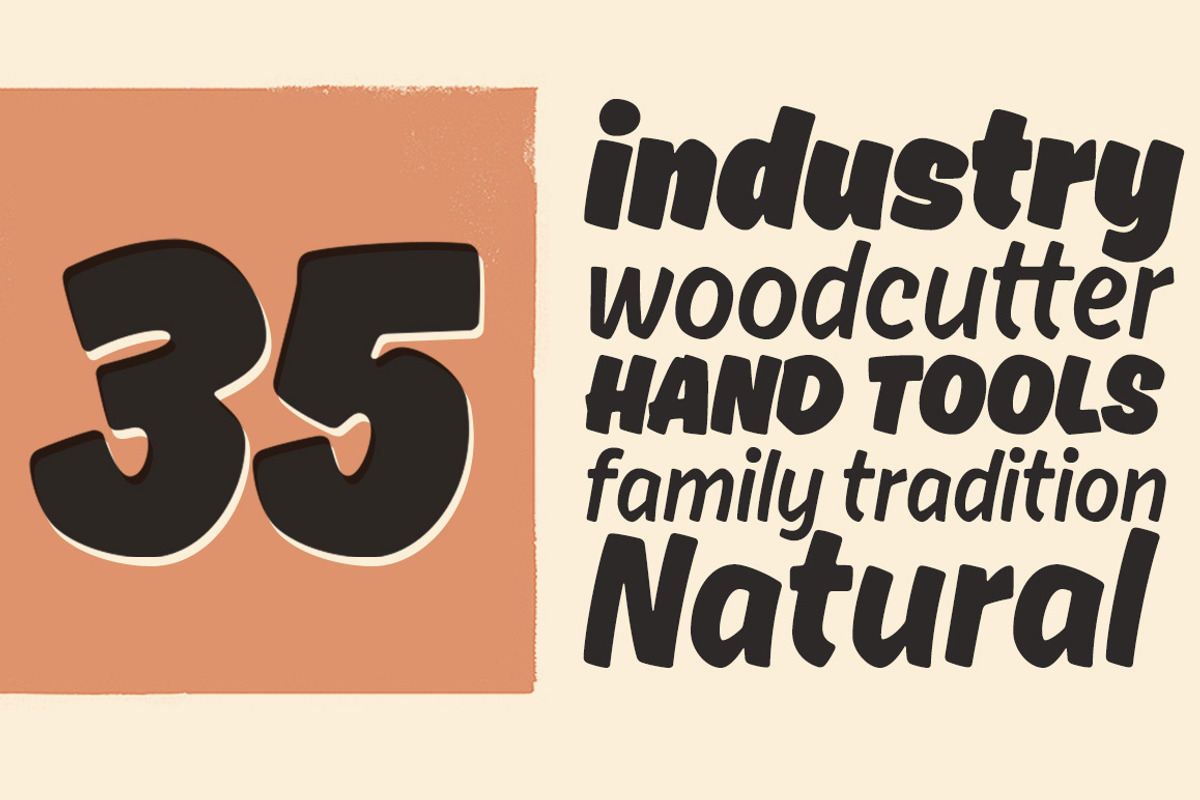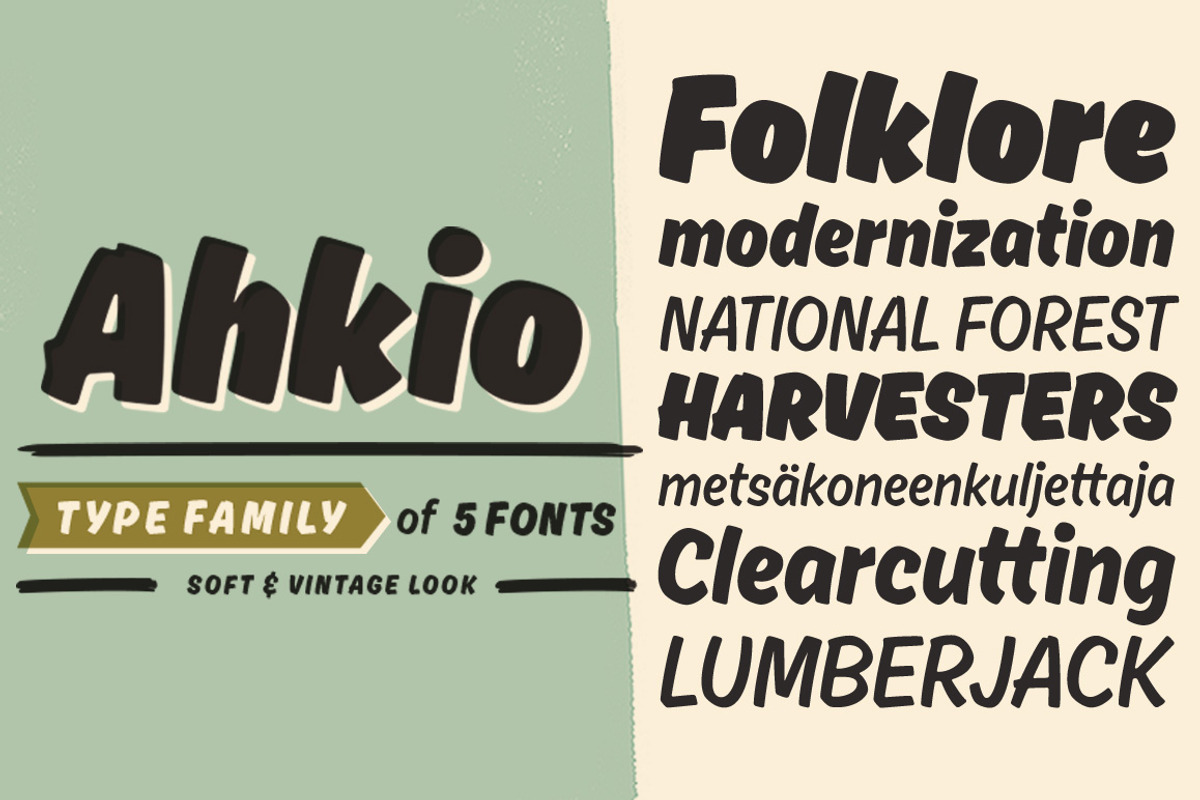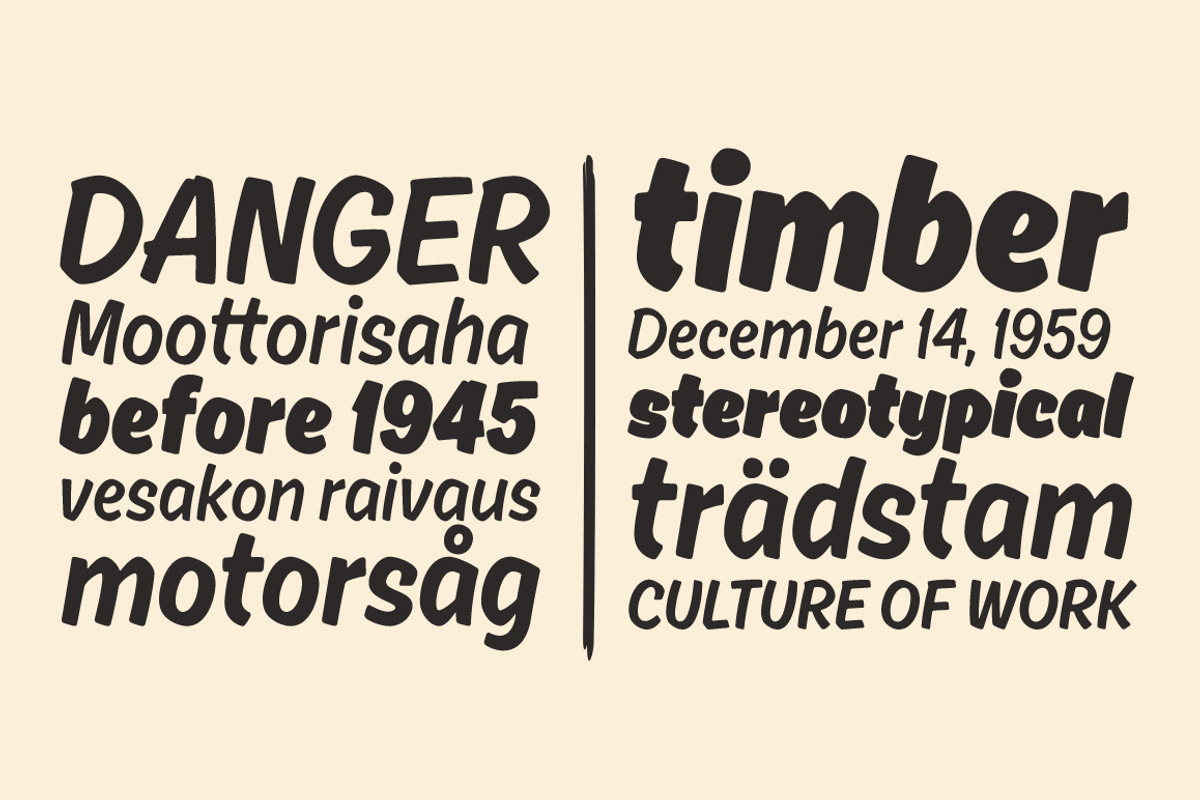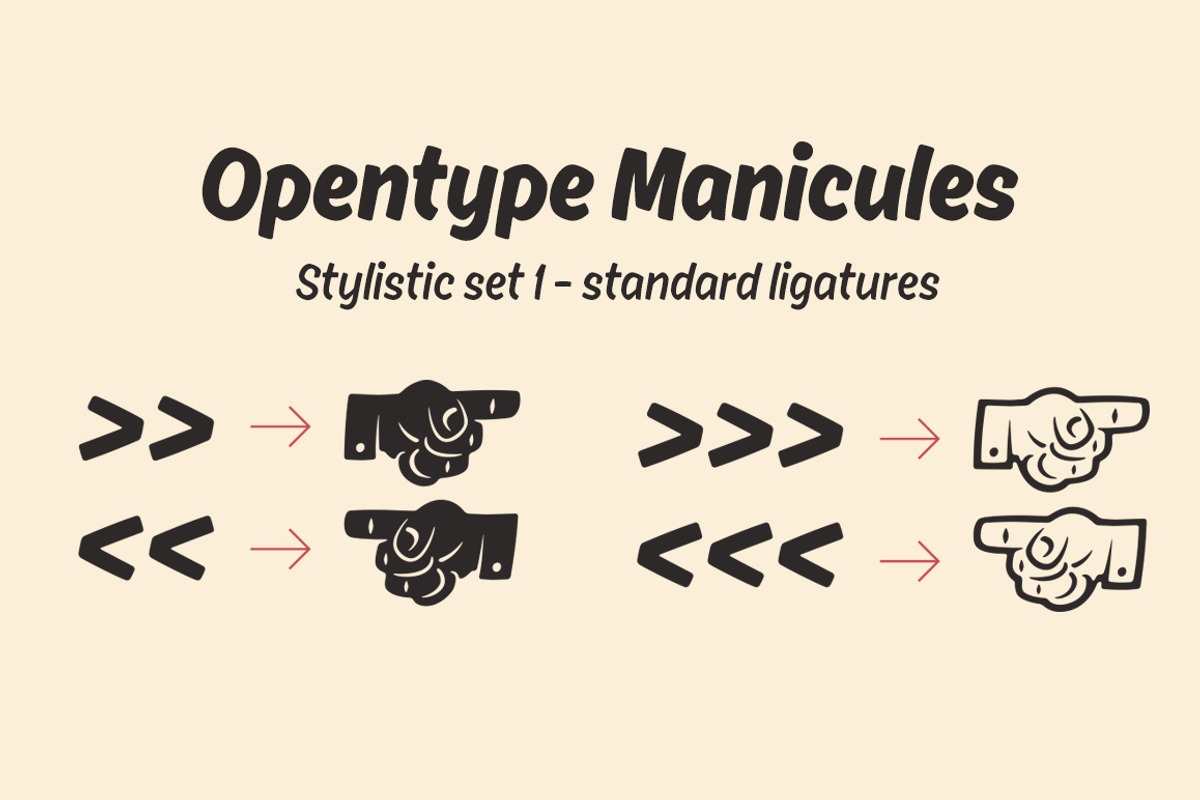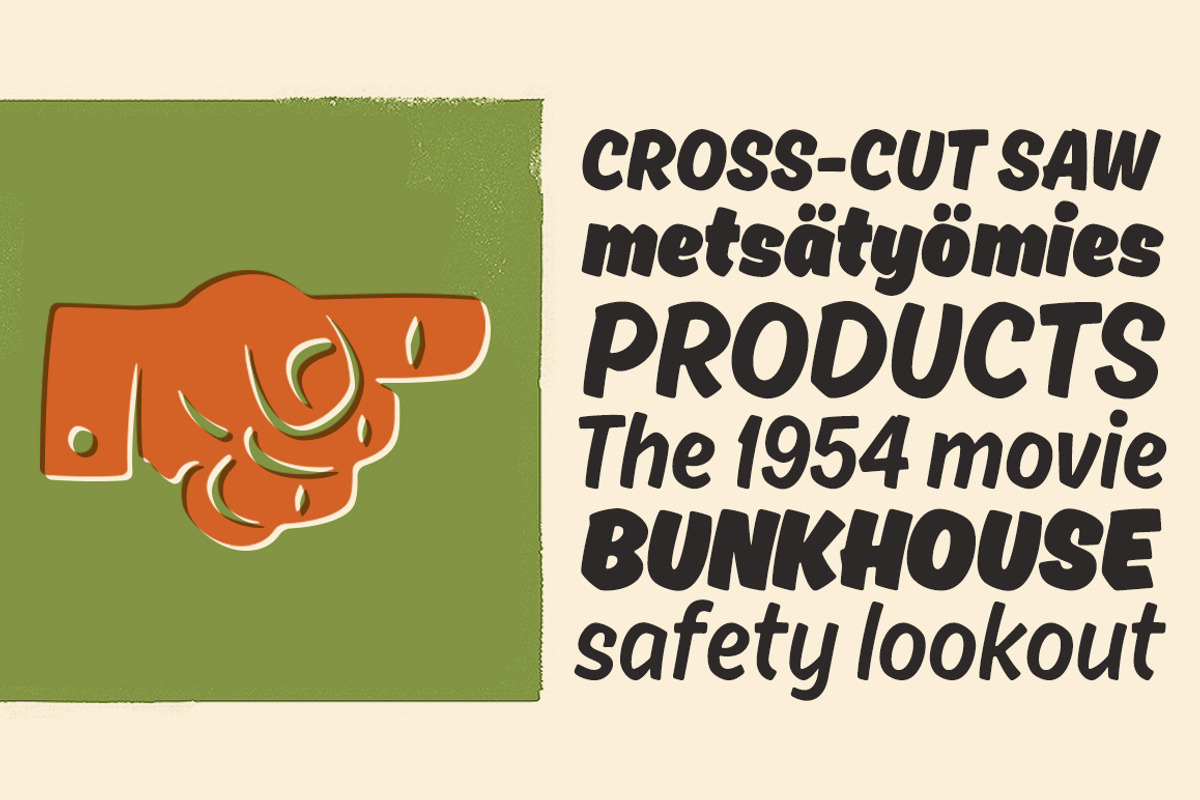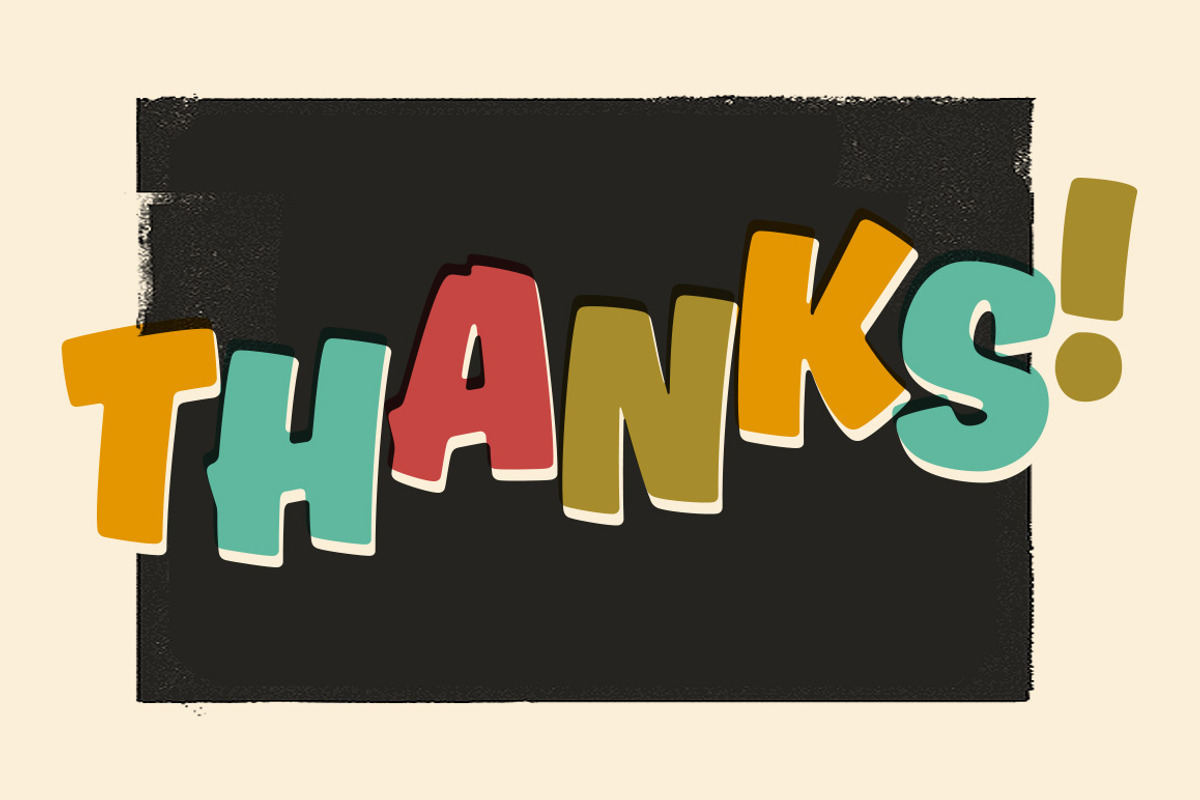
Ahkio
Ahkio is a brushed disconnected script family of 5 fonts. Ahkio’s roots are in 1930s sign painting and showcard lettering but with a modern and individual twist. Main characteristics are soft, rounded forms and a bit curved stems. Ahkio is a friendly and gentle font that suits well in titles, packages, logos and for example posters. 5 weights makes Ahkio a versatile font that gives you a possibility to add contrast and interest to your typography.
Ahkio includes black and white manicules. You can use them easily with OpenType options. Just choose Stylistic set 1 and make sure Standard ligatures are on. Then just type:
for Blackmaniculeright for Blackmaniculeleft
for Whitemaniculeright for Whitemaniculeleft